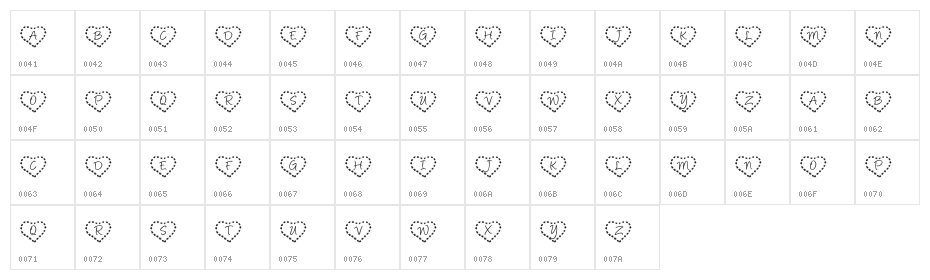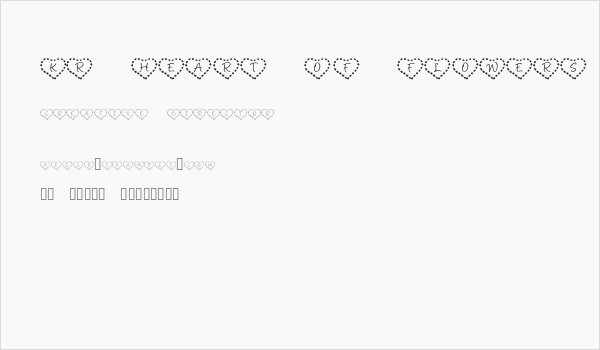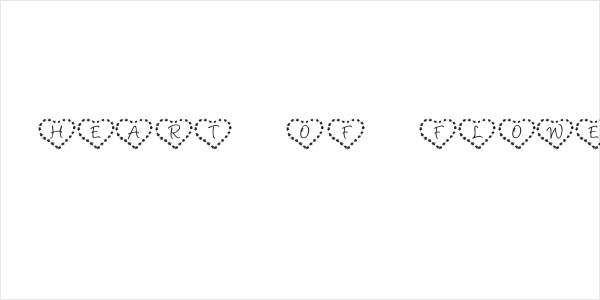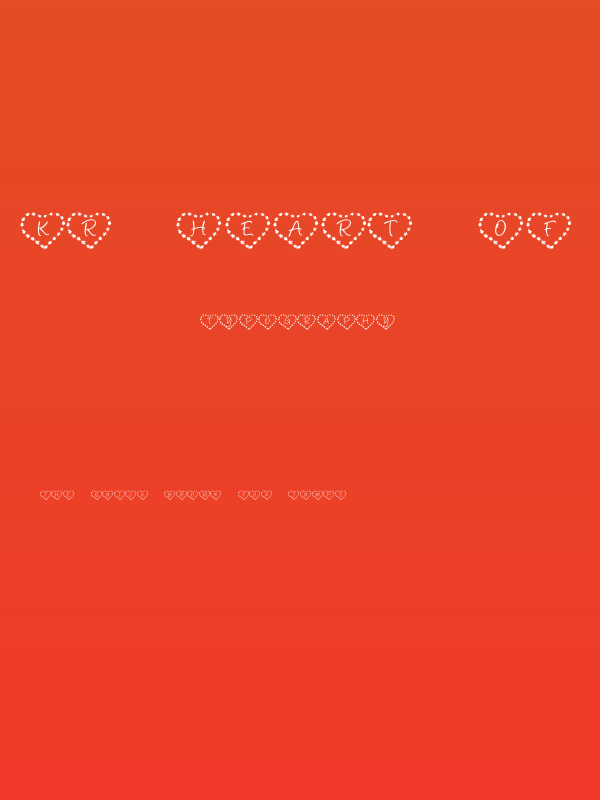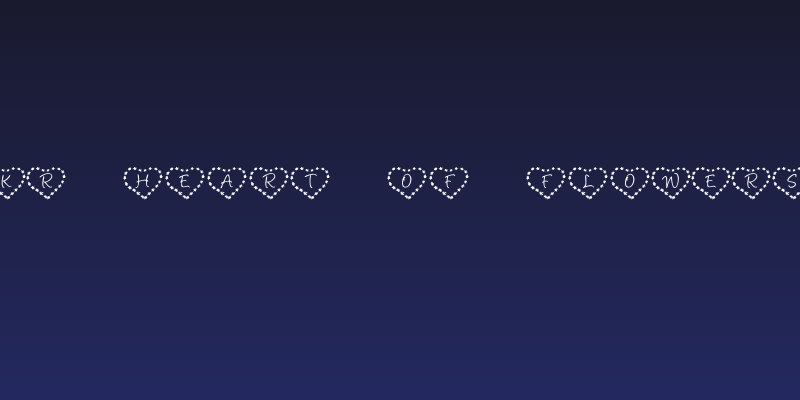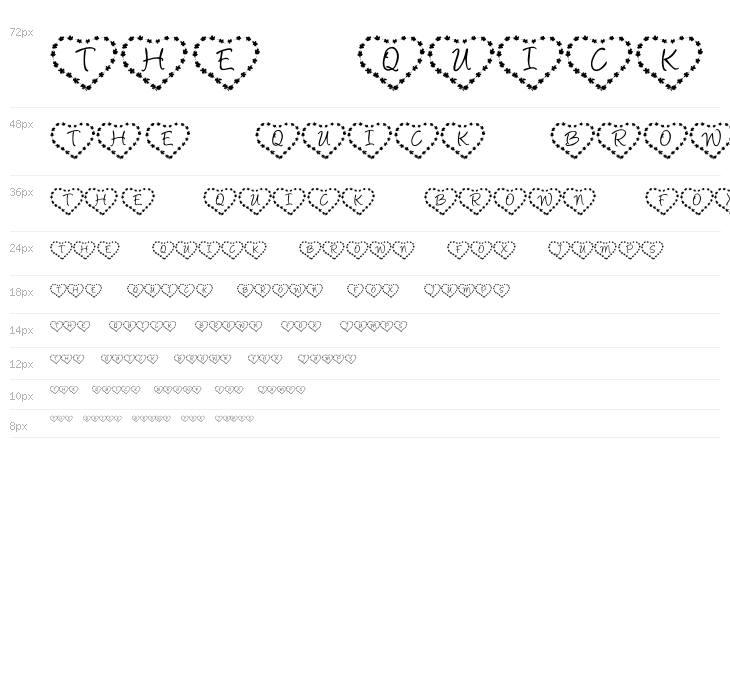
KR Heart of Flowers Font
KR Heart of Flowers Description
This decorative font features uppercase and lowercase letters encased within heart shapes, each outlined with a floral pattern. The letters are elegantly styled, resembling a handwritten script, which adds a personal and romantic touch. The font is visually appealing and unique, making it suitable for projects that require a charming and whimsical aesthetic. The heart and flower motif is consistent throughout, creating a cohesive and thematic look. The font does not include numbers or special characters, focusing solely on the alphabet, which enhances its specialized use for decorative purposes.
| Proposed Projects | Ideal for wedding invitations, Valentine's Day cards, romantic-themed posters, and decorative crafts. |